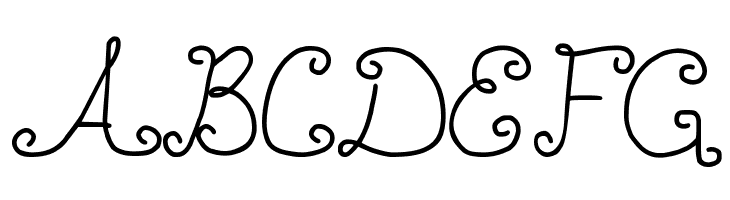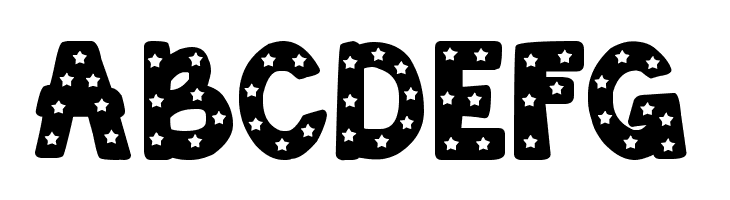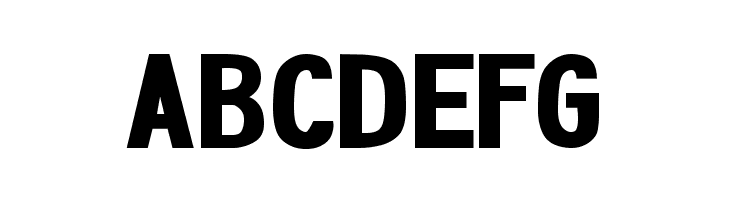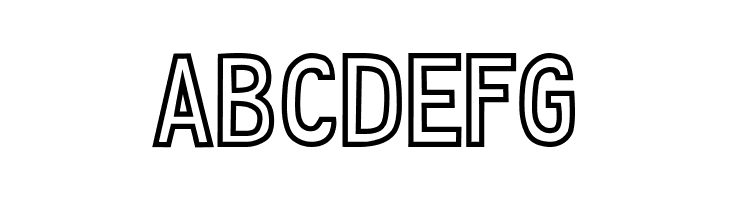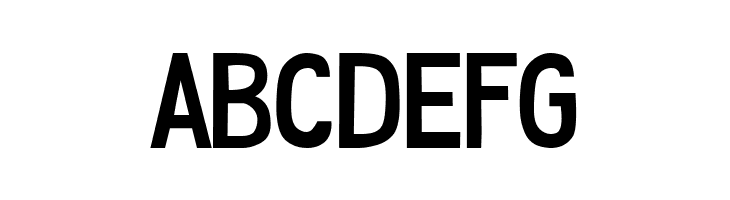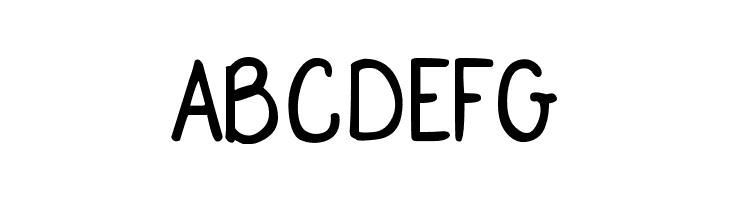
A playful, hand-drawn font with a sketch-like, whimsical style.
A bold, playful handwritten font with dynamic and irregular strokes.
A playful handwritten font with quirky, uneven strokes and a casual style.
A bold, outlined font with a playful and modern style.
A bold, modern sans-serif font with clean lines and high legibility.
A bold, impactful font with thick strokes and a strong presence.
A whimsical, curly font with playful loops and flourishes.
A bold, star-filled decorative font with a playful and whimsical style.
A playful handwritten font with rounded, smooth letterforms.